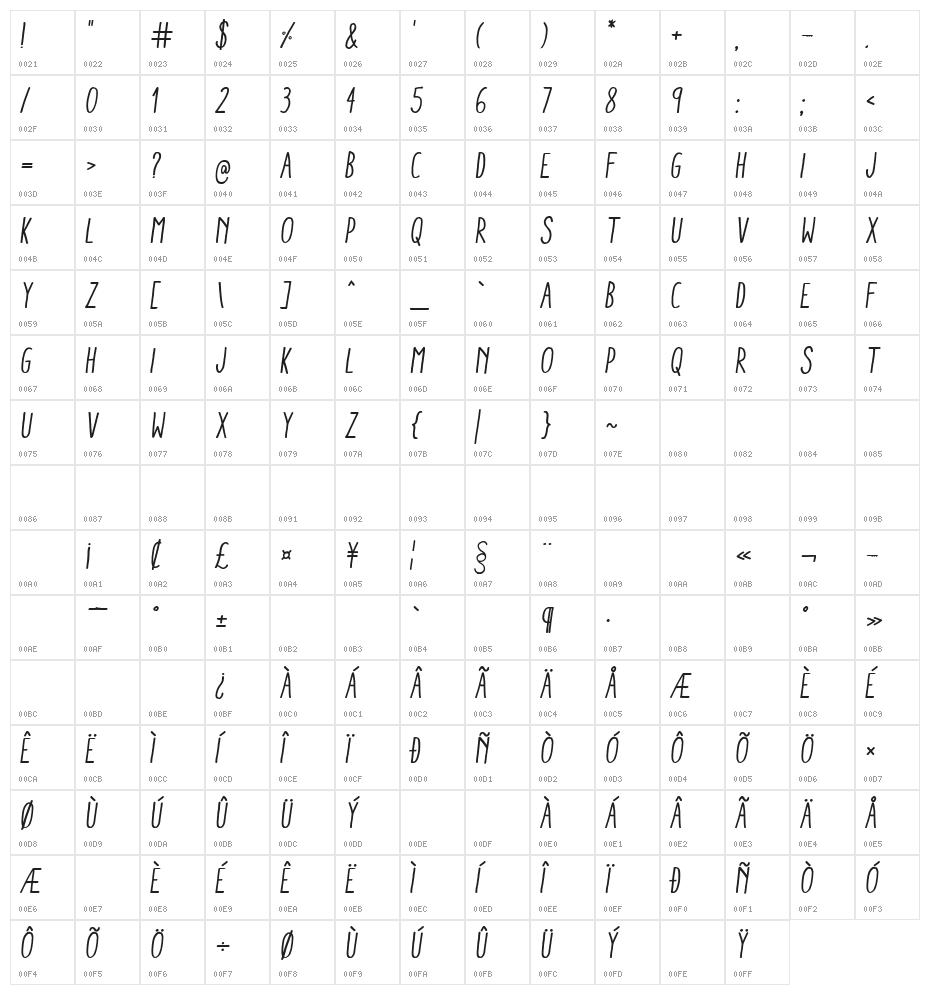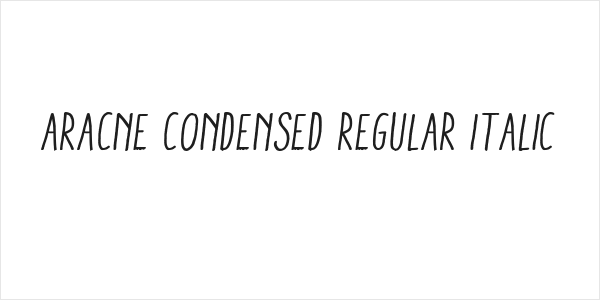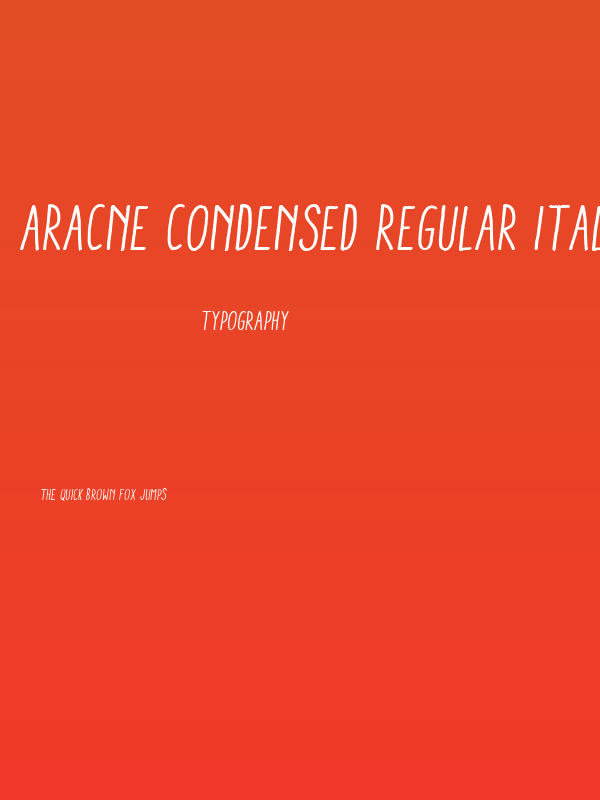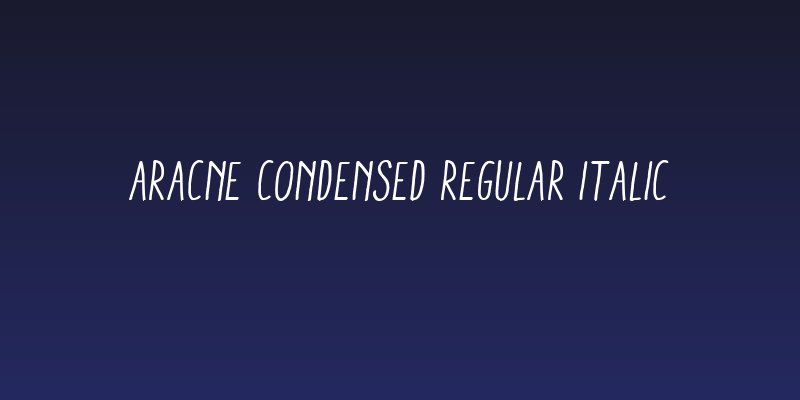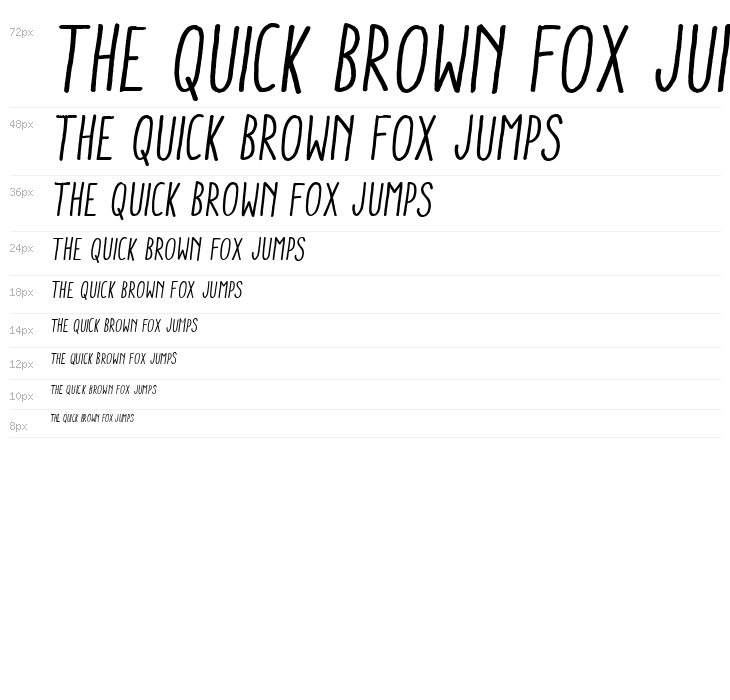
Aracne Condensed Regular Italic Font
Aracne Condensed Regular Italic Description
This font features a condensed and italicized style, offering a unique blend of modern and handwritten aesthetics. The characters are elongated and slightly slanted, giving a dynamic and fluid appearance. The strokes are consistent in width, providing a uniform look across all characters. The uppercase and lowercase letters maintain a cohesive design, with a playful yet sophisticated touch. The numerals and special characters are crafted to match the overall style, ensuring versatility in various applications. This font is ideal for projects that require a personal and approachable feel, while still maintaining a professional edge.
| Proposed Projects | Ideal for branding, invitations, posters, and social media graphics. |